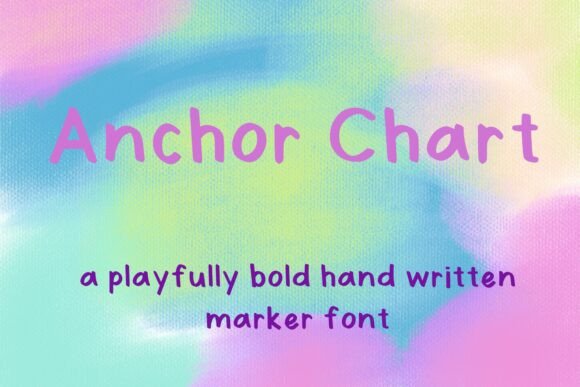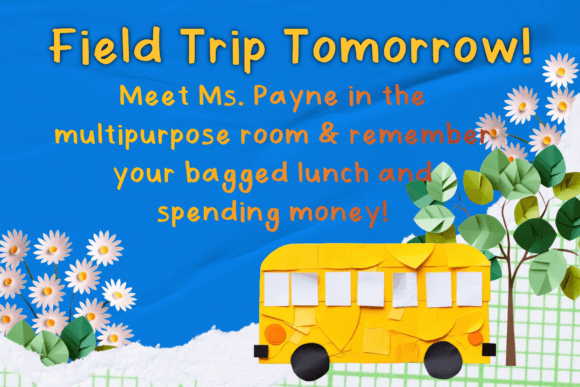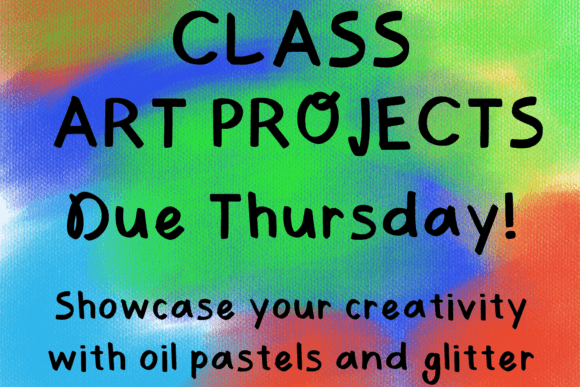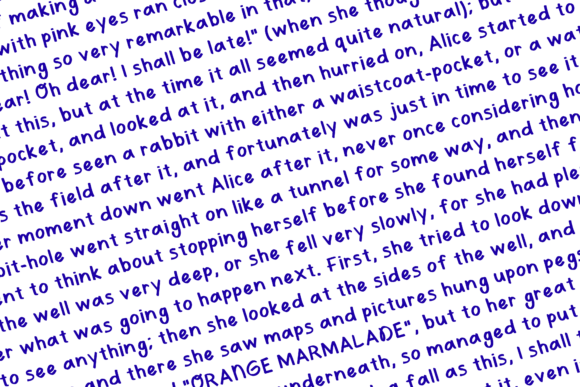
Anchor Chart Font: A Playful Handwritten Font for Teachers & Cricut Crafts
About the Anchor Chart Font
Crafted with precision, the Anchor Chart Font is ready to bring your ideas to life. Introducing Anchor Chart a bold font. Anchor Chart is a fun and playful hand-lettered marker-style reminiscent of your favorite teacher’s best handwriting.
Anchor Chart excels in display applications such as headlines, posters, and short-form branding elements where its playful energy can shine. It’s ideal for projects targeting a younger demographic or conveying a friendly, approachable brand personality. Avoid using it for body text or UI elements; its irregular letterforms hinder readability in extended passages.
Pair Anchor Chart with a clean sans-serif like Open Sans for a balanced contrast, or a more geometric sans-serif like Futura for a modern feel. For a touch of elegance, consider pairing it with a delicate script font, but use it sparingly to avoid overwhelming the design.
Its core personality is undeniably playful and approachable, making it perfect for projects requiring a fun, hand-crafted aesthetic. Avoid using it where a professional, serious tone is required.